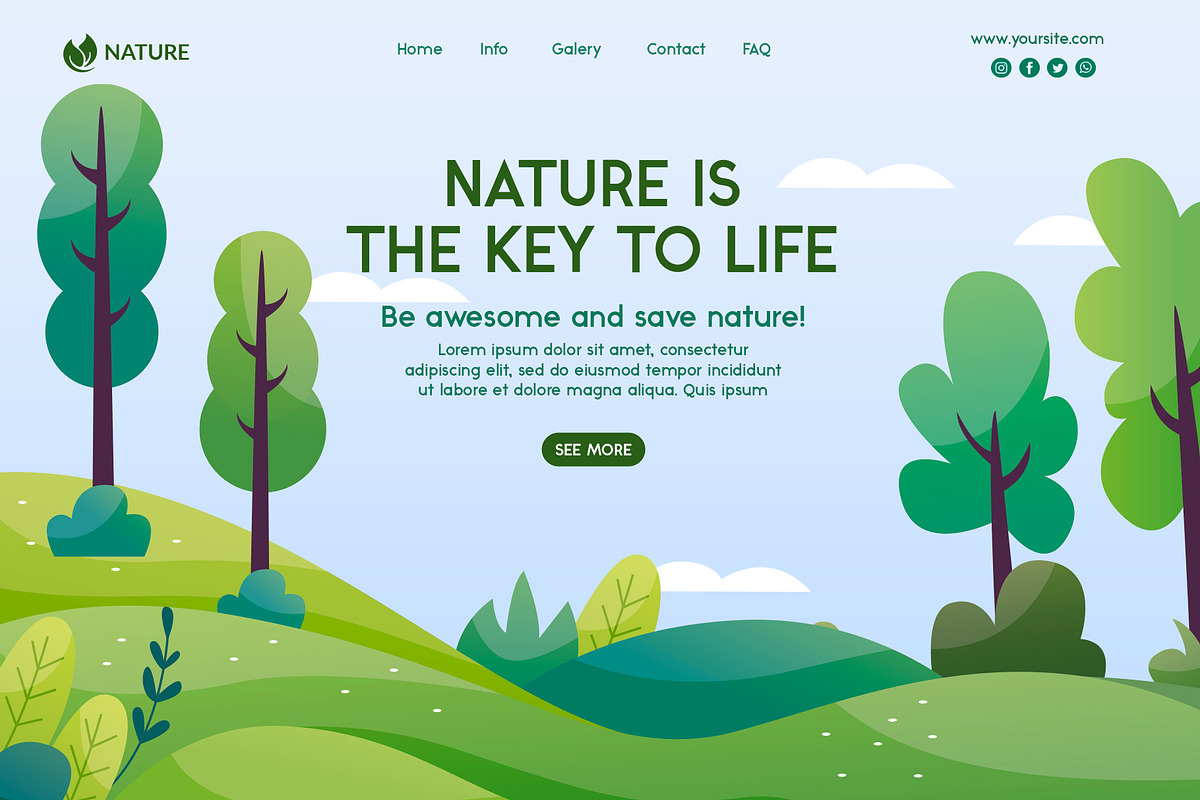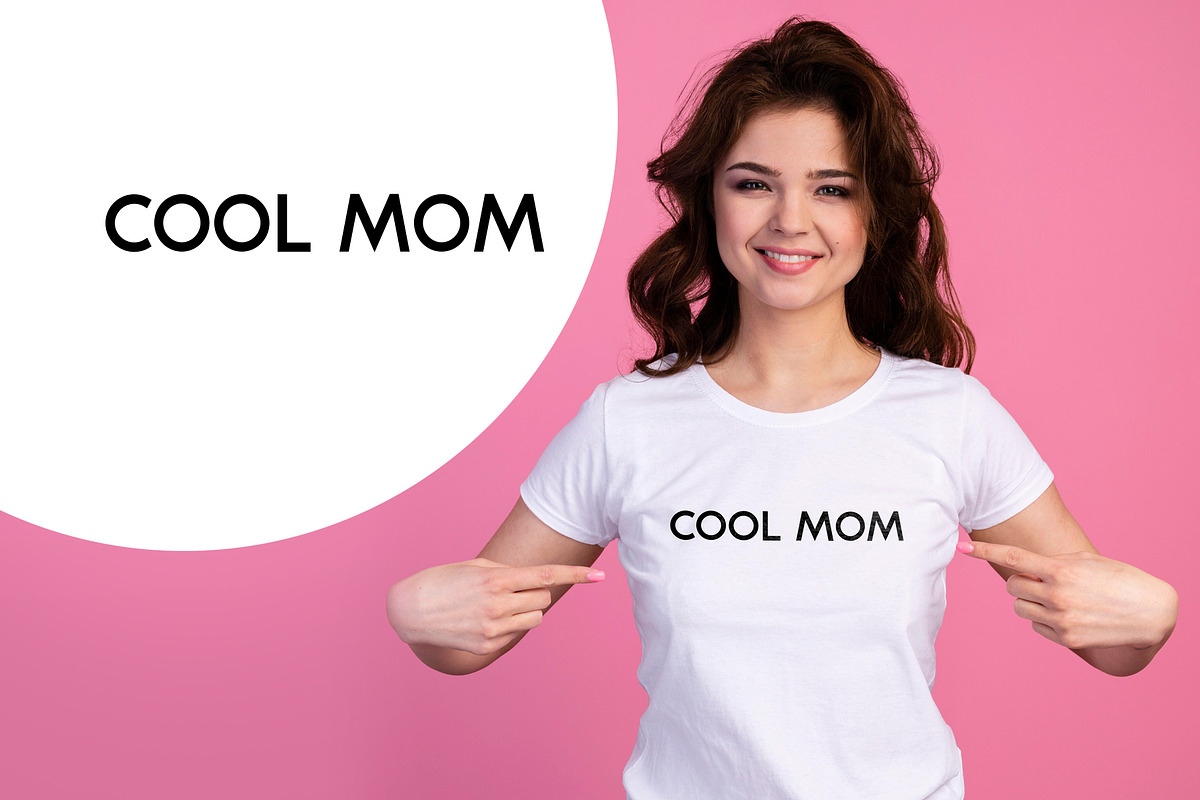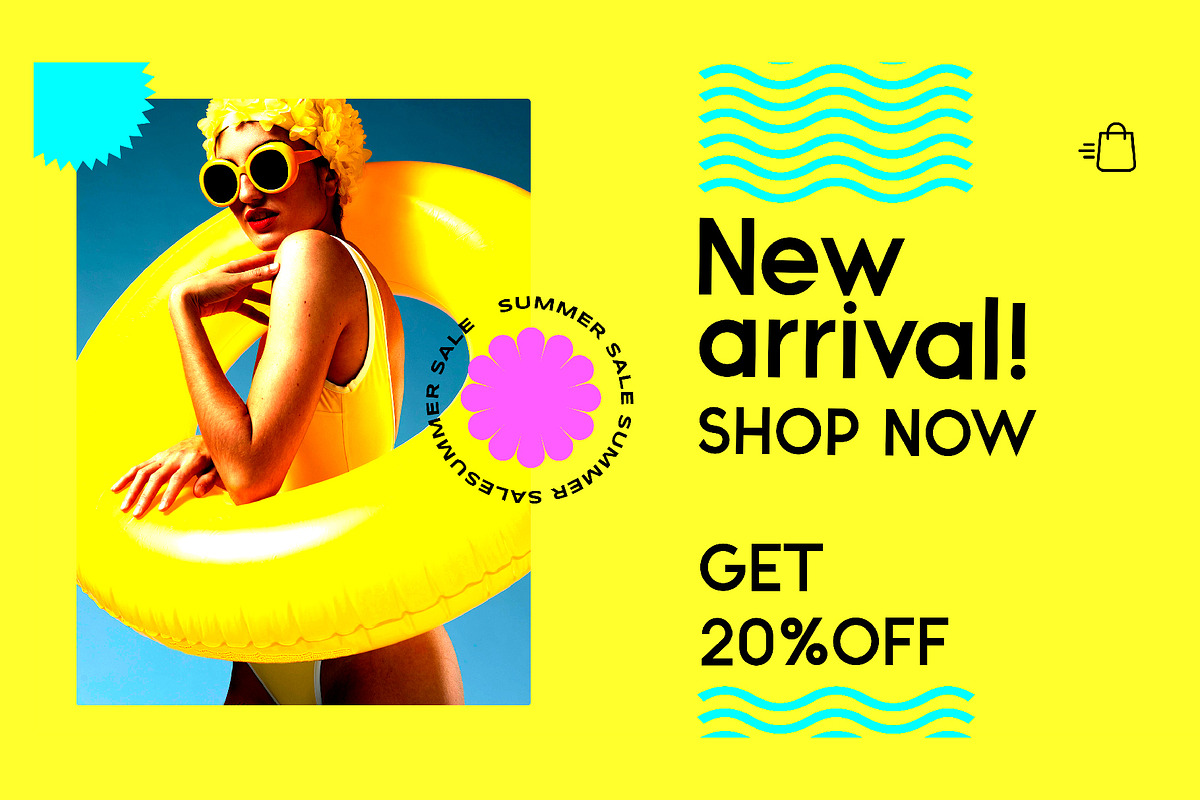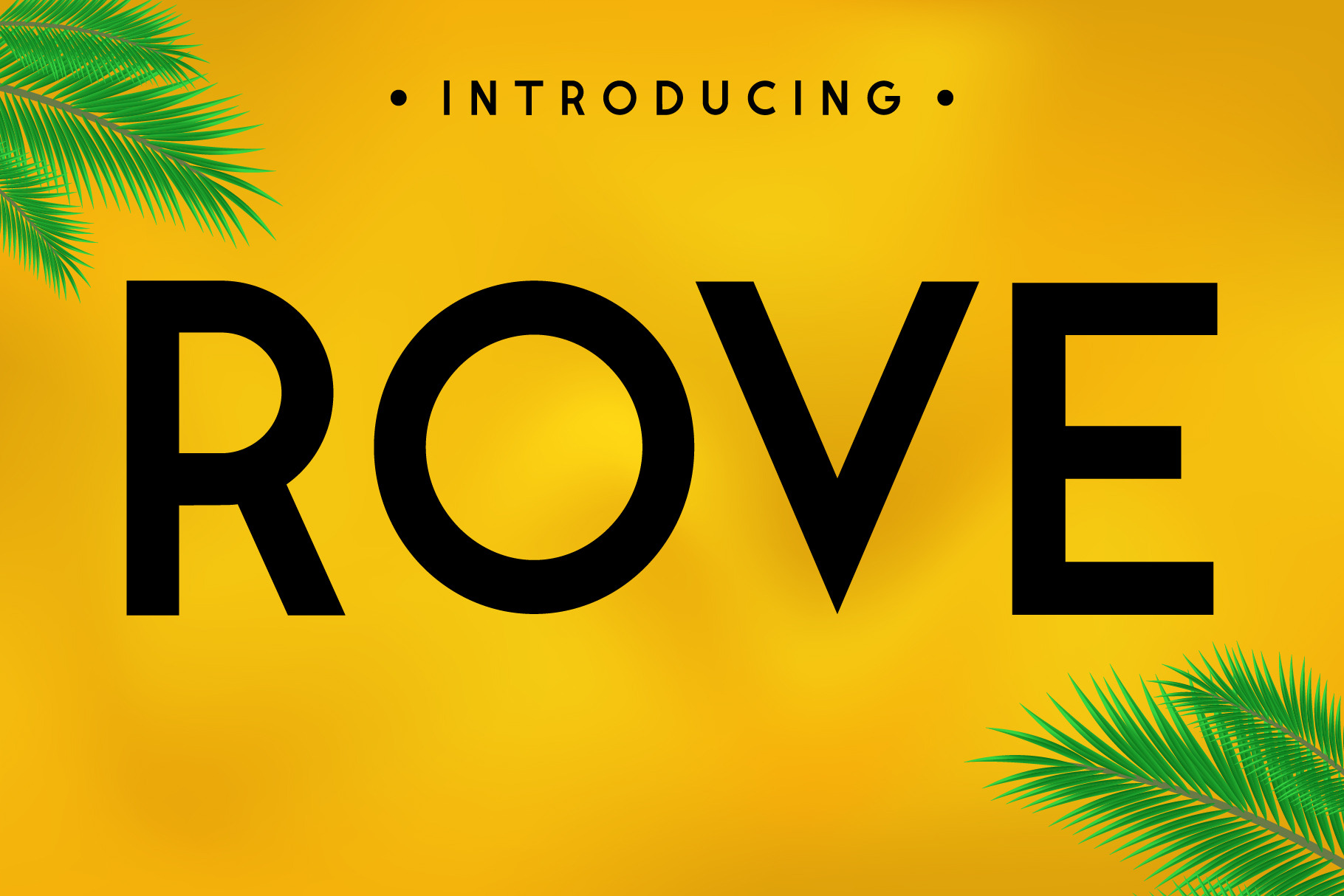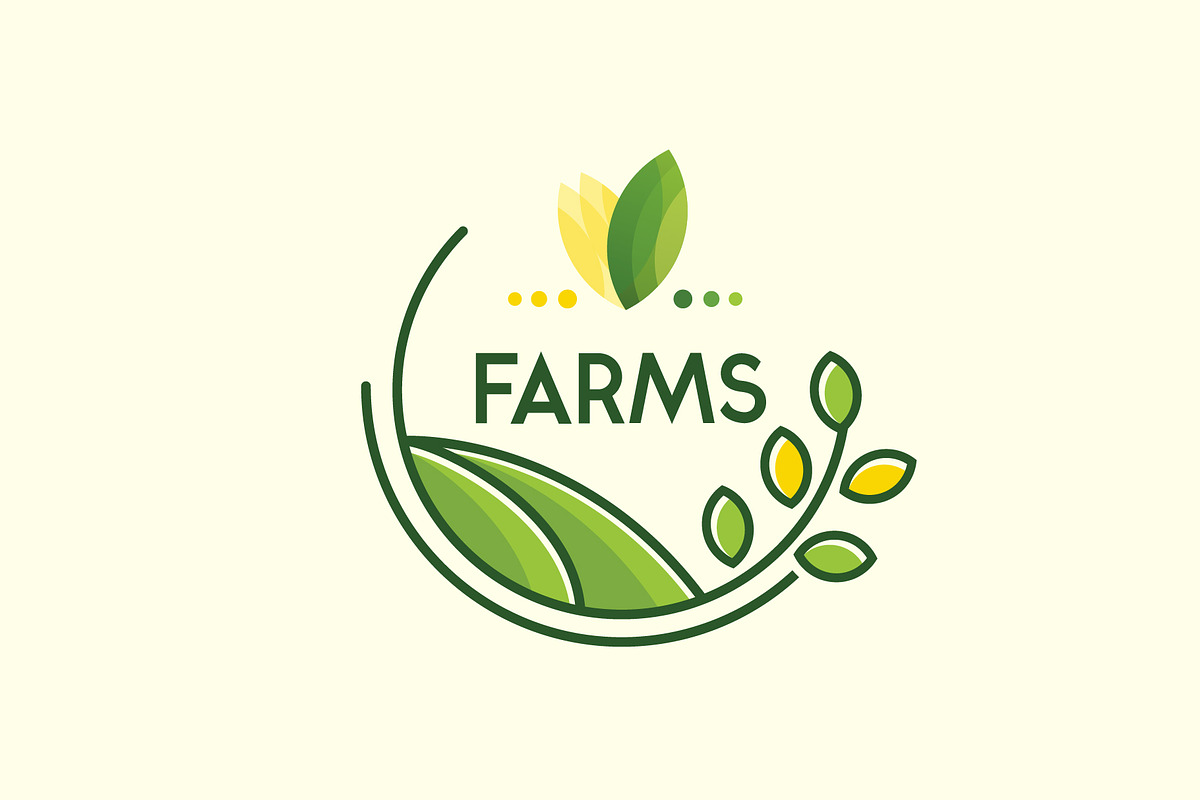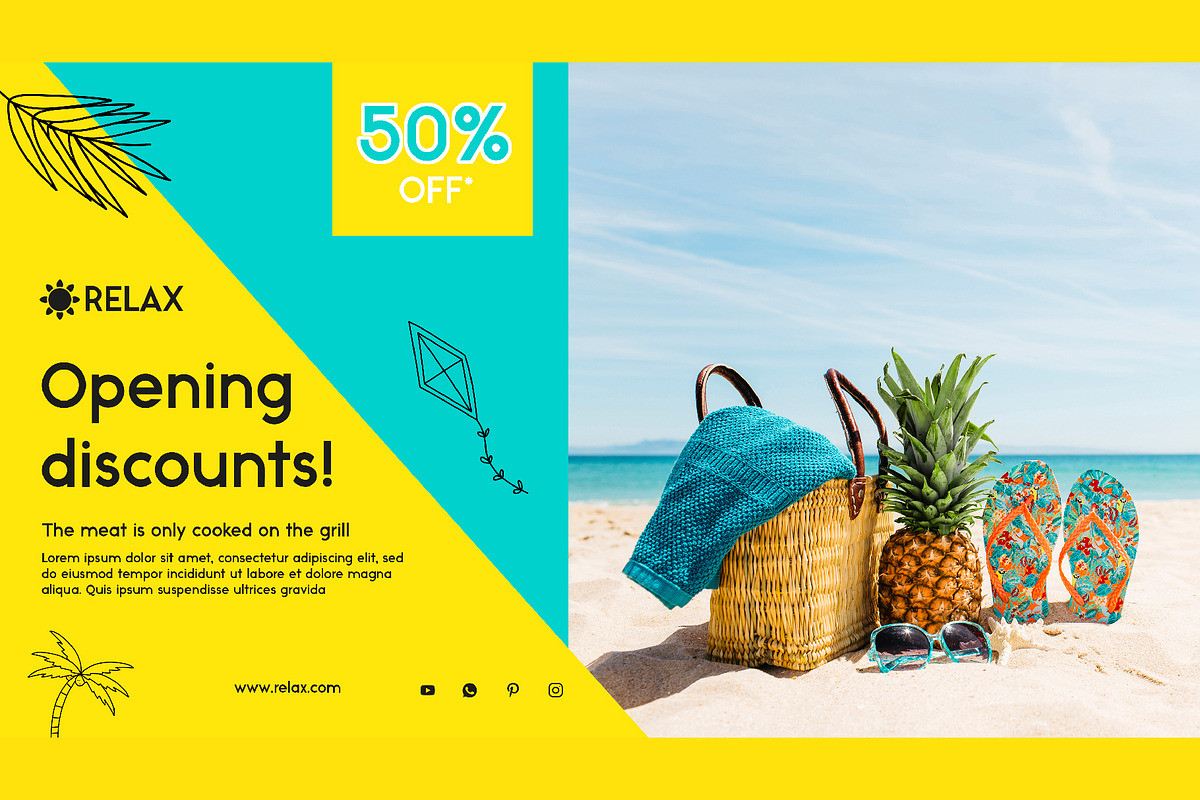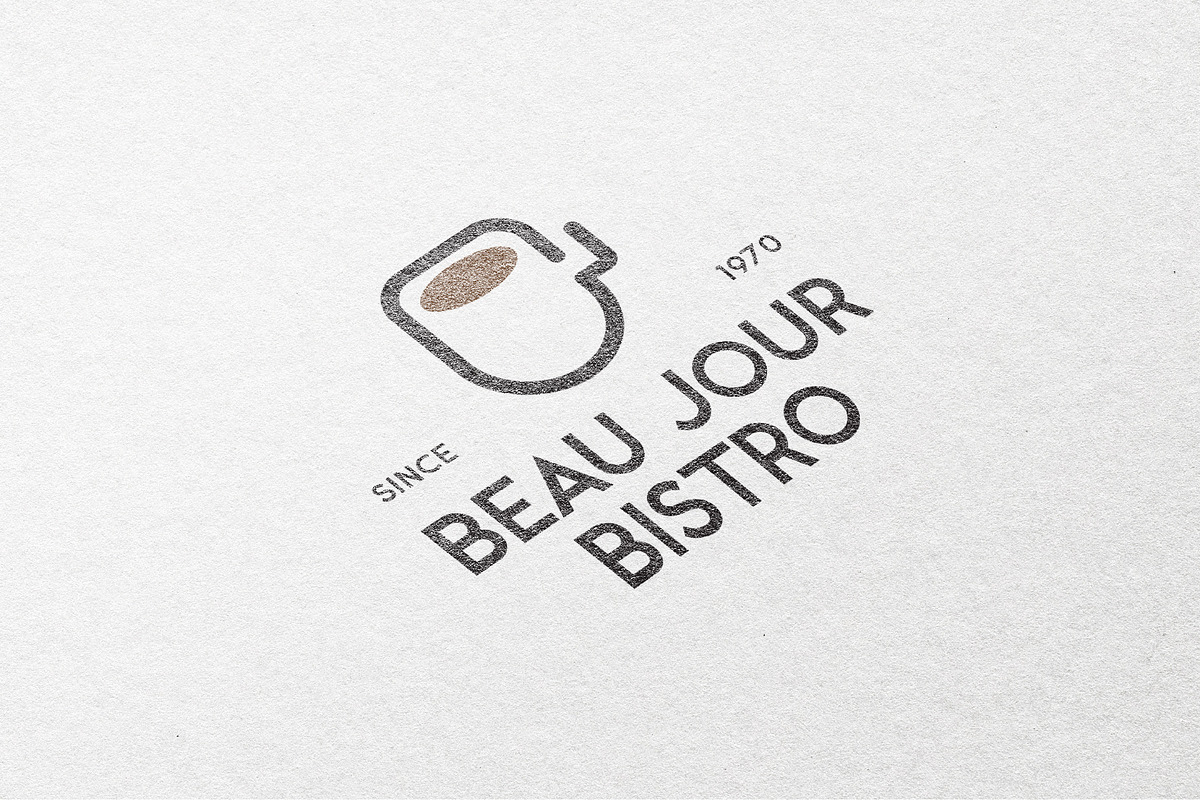
Rove Fonts
Rove Fonts is a simple Sans Serif font. But it can be used in a variety. It can easily be matched to an incredibly large set of projects, so add it to your creative ideas and notice how it makes them stand out!